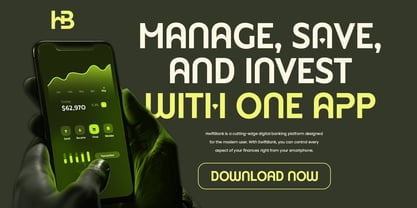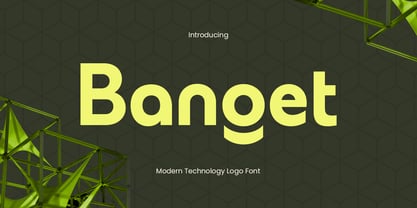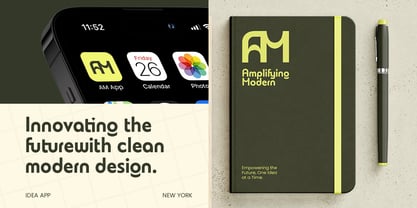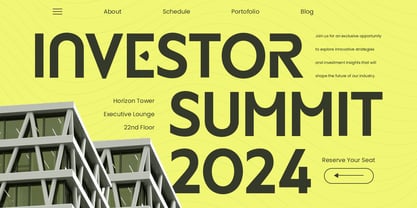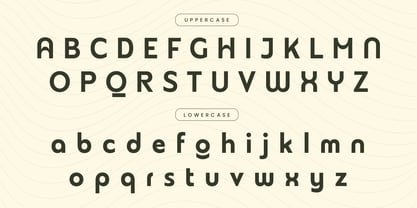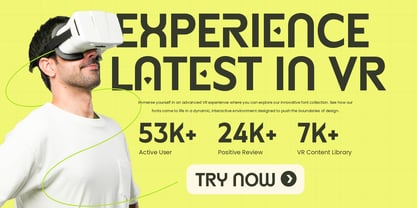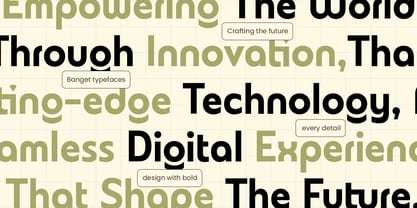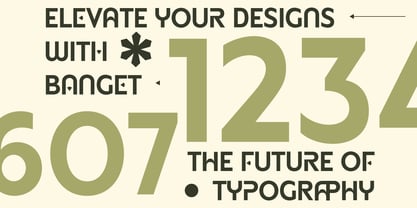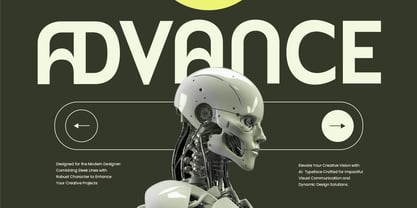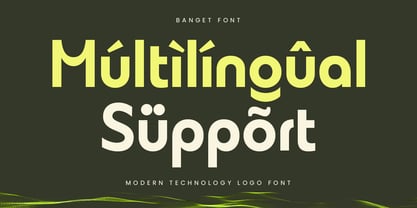
Banget
by Sensatype Studio
The Banget Font Family was designed by Zamroni Hamzah and published by Sensatype Studio. Banget contains 2 styles and family package options. More about this family
Banget Logo Font
Banget is a modern technology logo font designed to meet the needs of innovative and tech-focused branding. With its sleek and clean character style, Banget brings a contemporary edge to any project, making it perfect for technology startups, software companies, and digital platforms looking for a bold and professional presence.
Inspired by futuristic aesthetics and a minimal approach, Banget’s structured forms and unique shapes make it stand out in any design application. It’s ideal for logos, headlines, and user interfaces, offering versatility and style that complement modern visual identities effortlessly.
Banget embodies the spirit of progress and sophistication, perfect for brands that want to convey trustworthiness and innovation. Its adaptive features ensure that it shines across both print and digital formats, setting your brand apart with a tech-savvy look.
Banget Modern Technology Logo Font Features:
• Unique Technology-Inspired Characters
• Punctuation, Number, and Symbol
• Uppercase and Lowercase
• Opentype Features
Multilingual Characters available for:
Afrikaans, Albanian, Asu, Basque, Bemba, Bena, Breton, Chiga, Cornish, Dutch, English, Estonian, Filipino, Finnish, Friulian, Galician, German, Gusii, Indonesian, Irish, Italian, Kabuverdianu, Kalenjin, Kinyarwanda, Luo, Luxembourgish, Luyia, Machame, Makhuwa-Meetto, Makonde, Malagasy, Manx, Morisyen, North Ndebele, Nyankole, Oromo, Portuguese, Quechua, Romansh, Rombo, Rundi, Rwa, Samburu, Sango, Sangu, Scottish Gaelic, Sena, Shambala, Shona, Soga, Somali, Spanish, Swahili, Swedish, Swiss.